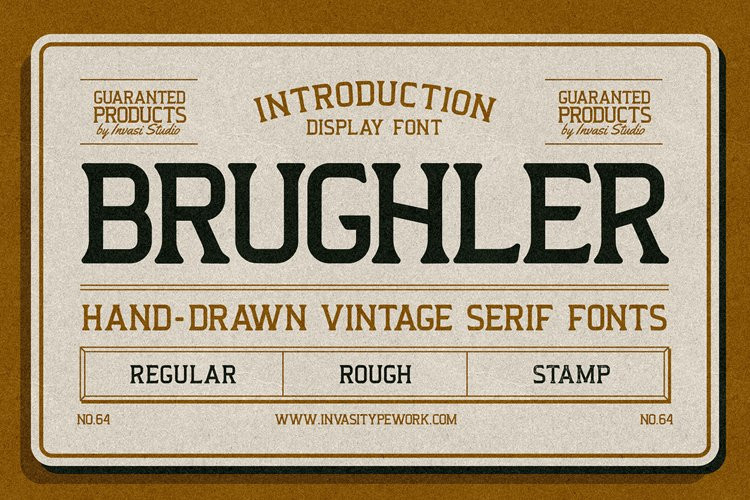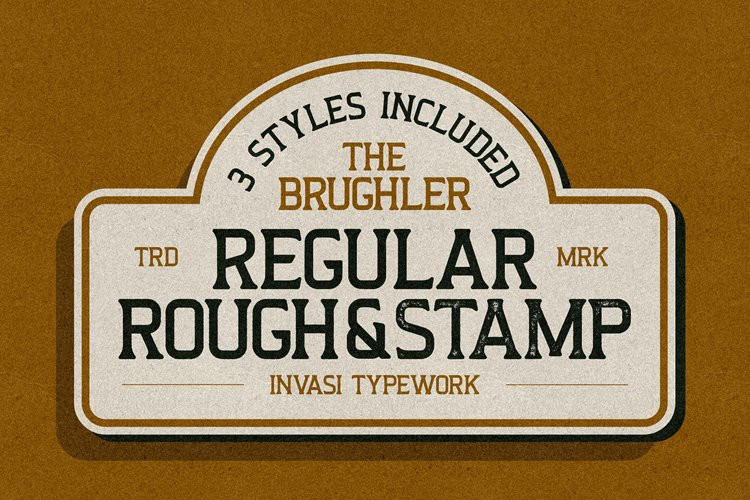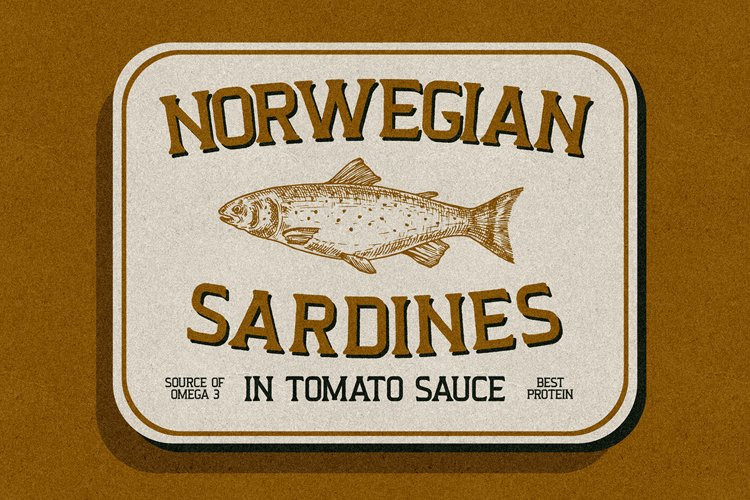
Brughler Font
Brughler FontTake inspiration from the old-fashioned era. The Brughler typeface gives a vintage aesthetic. With it’s unique & distinct characteristics, it stands out from the rest, while also keeping a timeless appeal. Brughler comes with 3 different styles of the font: Regular, Rough, and Stamp. Brughler’s Rough & Stamp versions allow you to create a printed look without using 3rd party effects, removing a step in the creation of your final product.